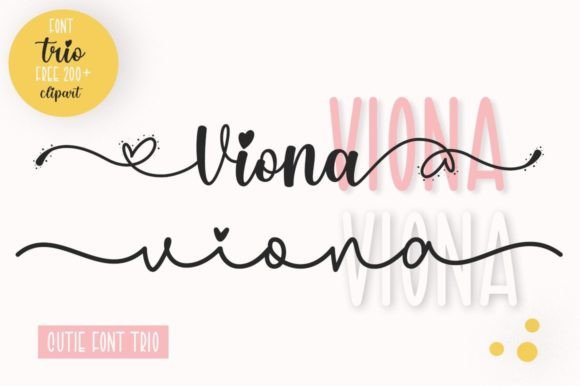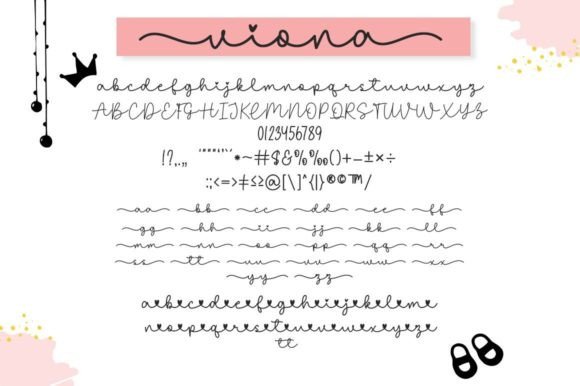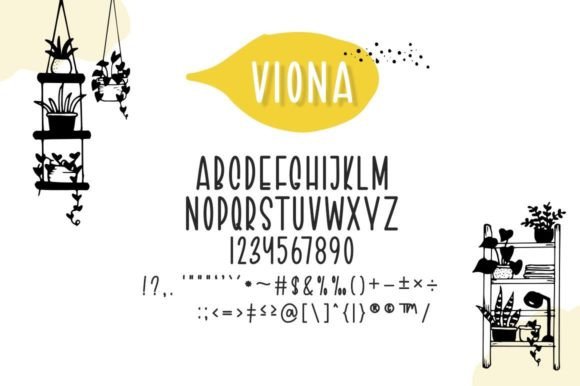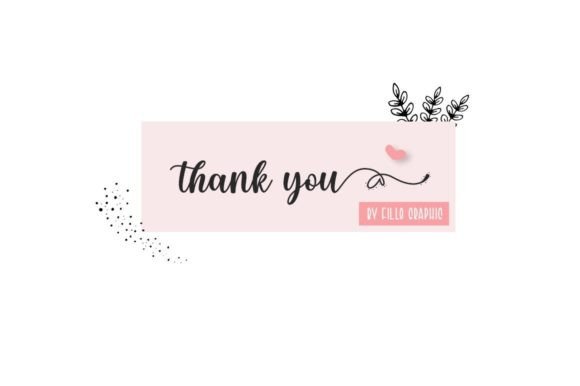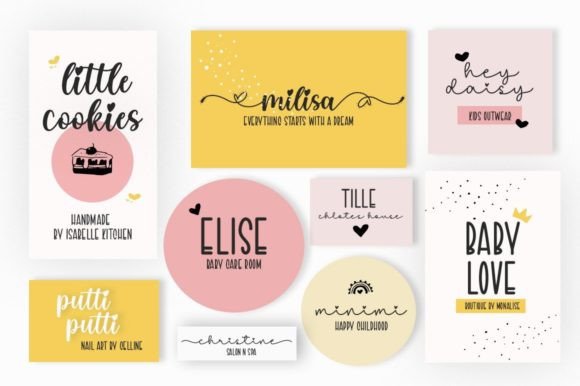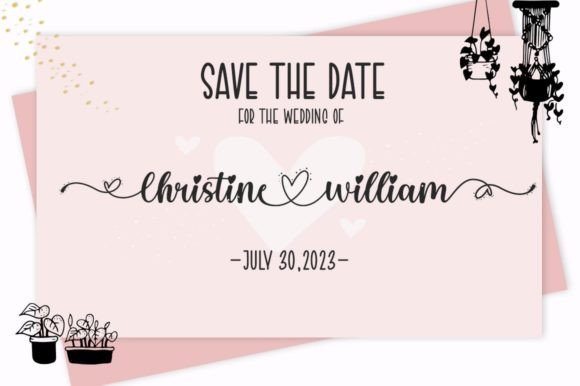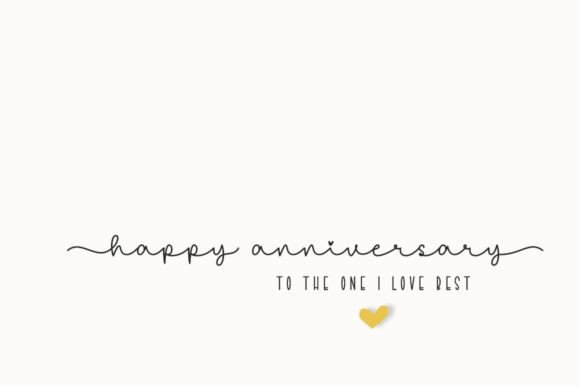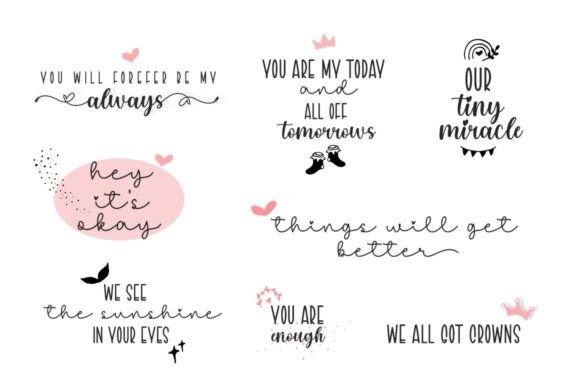
Viona Font
About Viona Font
Viona, an exquisite typeface, comprises three distinct fonts—handwritten, script, and regular display—each meticulously crafted to harmonize seamlessly with the others. Whether used together or independently, these fonts are the quintessential choice for infusing your creative projects with a chic and cheerful ambiance.
The handwritten font exudes an organic and personal touch, injecting warmth and authenticity into your designs. Its flowing strokes and irregularities emulate the charm of hand-drawn elements, making it a versatile choice for a range of applications.
Complementing the handwritten font is the script variant, a dynamic and elegant typeface that adds a touch of sophistication to your projects. With its graceful curves and fluid lines, the script font brings a sense of refinement, making it ideal for formal invitations, branding, and other upscale designs.
To round out the trio, the regular display font offers a clean and contemporary aesthetic. This font serves as a reliable anchor, providing clarity and legibility in various design contexts. Its versatility makes it suitable for anything from headlines and body text to signage and digital interfaces.
What sets Viona apart is its PUA encoding, a feature that enhances accessibility and convenience for users. PUA, or Private Use Area, encoding allows you to effortlessly access all the glyphs and swashes included in the fonts. This means you have the freedom to explore and utilize the extensive character set, unlocking a myriad of design possibilities.
Whether you’re a seasoned designer or a crafting enthusiast, Viona empowers you to bring your creative vision to life with ease. The thoughtful synergy between the three fonts ensures that they work harmoniously together, giving you the flexibility to mix and match according to your design needs.
In conclusion, Viona is more than just a set of fonts—it’s a design toolkit that empowers you to create visually stunning and cohesive projects. Elevate your crafts, invitations, branding, and more with the chic and cheery vibes that Viona effortlessly brings to the table.